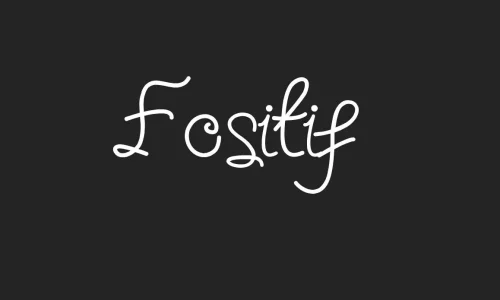
Gabriel Weiss Friends Font is a fluid and refined script font that is frequently selected for designs needing a hint of sophistication and elegance.
Gabriel Weiss Friends Font Family